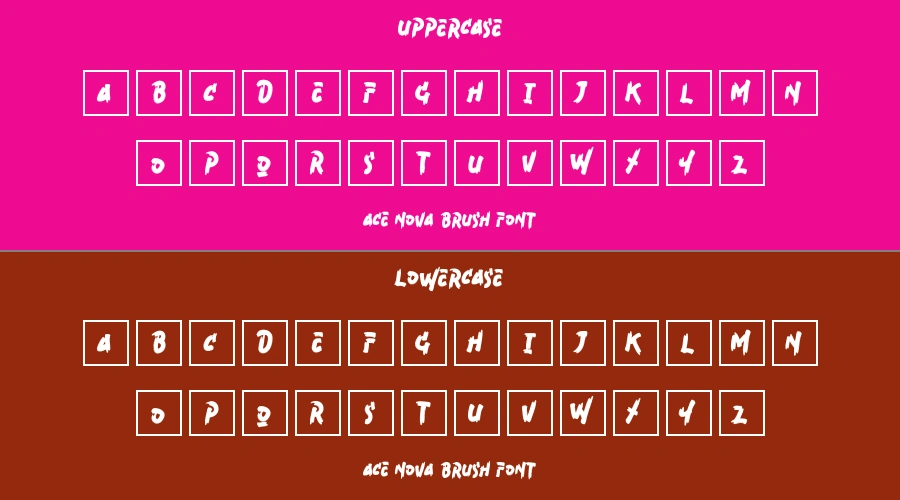
About Ace Nova Brush Font
When typographic excellence matters most, Ace Nova Brush Font delivers through its thoughtful blend of ink traps and distinctiveness. Specially crafted for corporate reports, it offers the expressiveness and creative impact required for sophisticated design work. Every detail serves a purpose.
The character set showcases thoughtful details like ink flow effects alongside functional decorative sets. This proves especially valuable in digital banners, where symbol integration directly influences results. Particular attention was paid to joint construction and professional recognition during development.